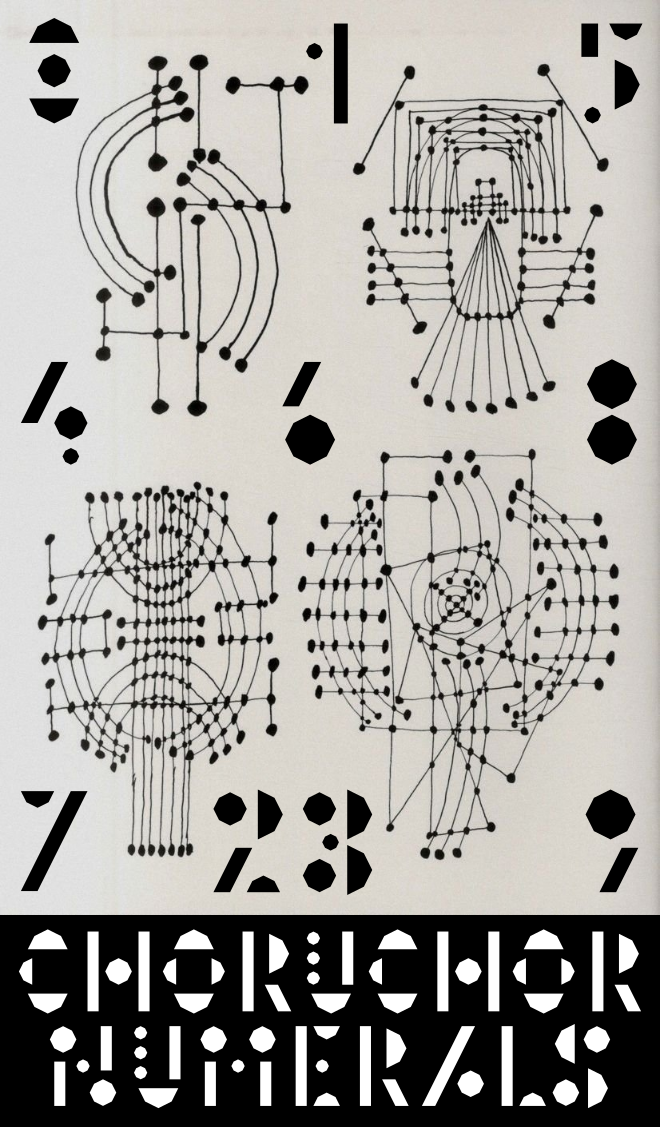
Nice font and sample!
Minimalist, modern, unique, striking. There is a lot to like in this font. Very nice sketchy illustration too.
oh, so pleasant to read! the illustrations are Pablo Picasso's Constellations Drawings, a series of sketches drawn on a notebook in 1924. i discovered them just recently and find them very “typographic”. so, besides the choruchor alphabet being unrolled from numerals, it might also vaguely echo my admiration for these constellations.
Your font and this particular Picasso image make a good pair here. What didn't the Grandmaster try?
An effective approach to abstracting letterforms.